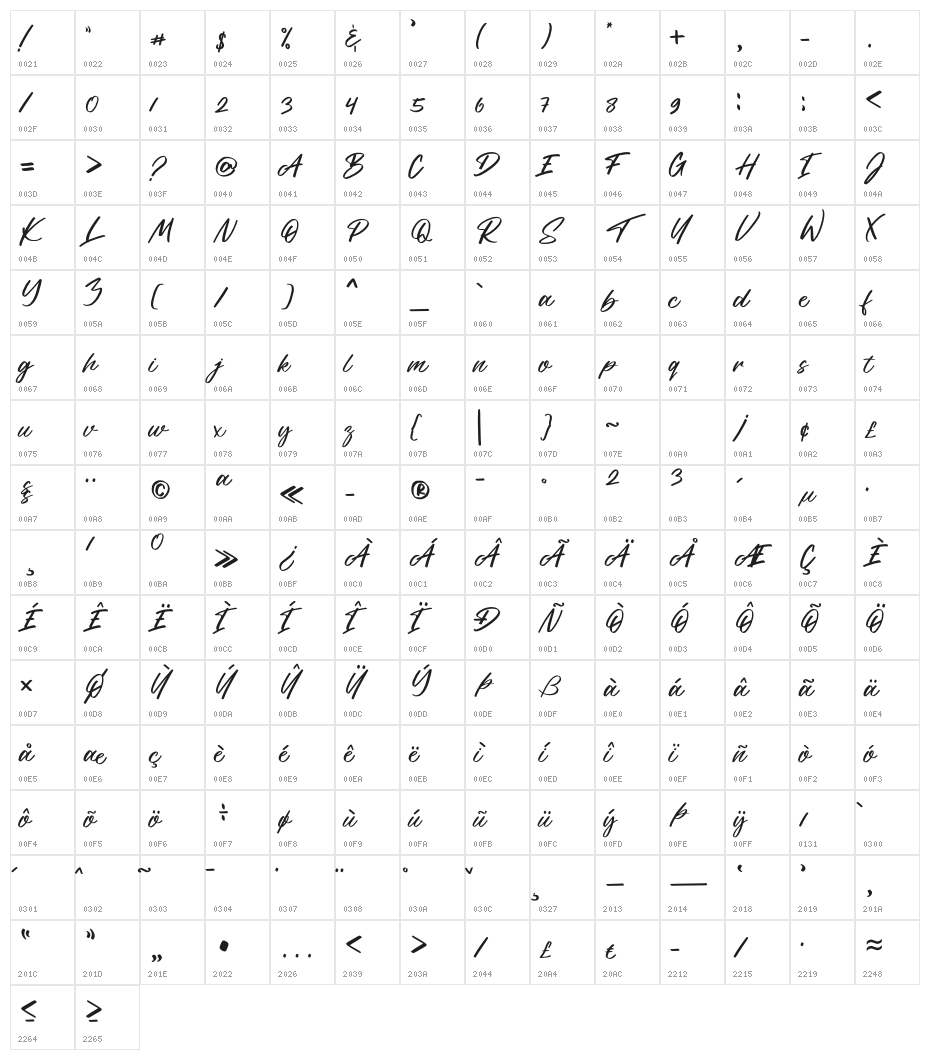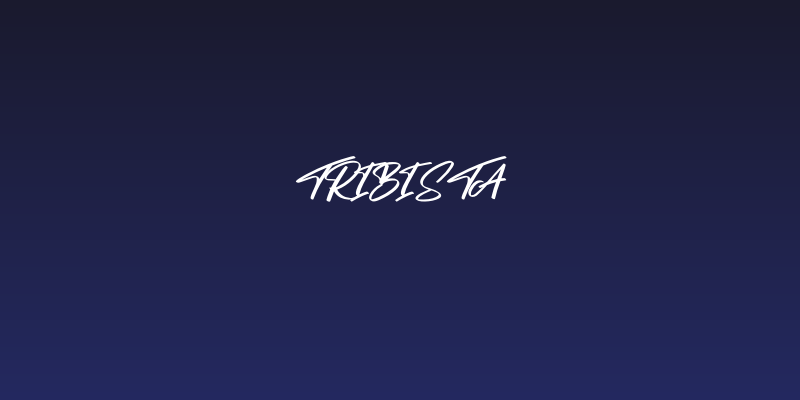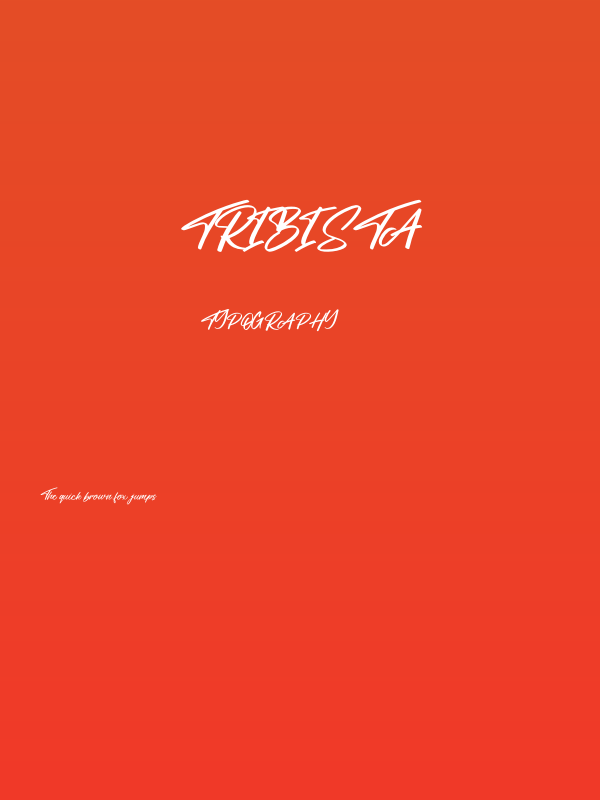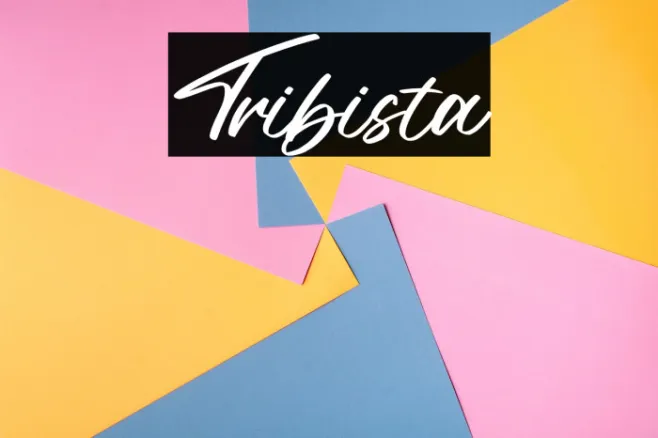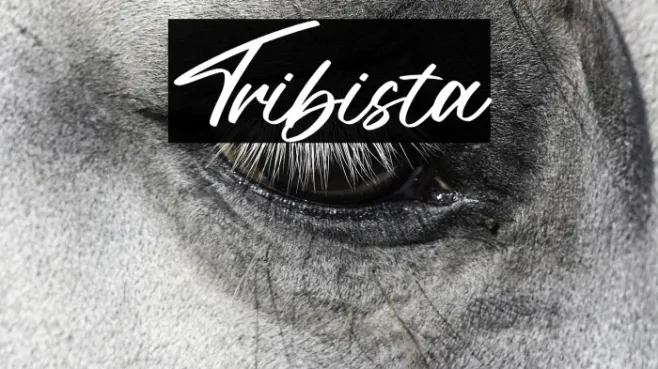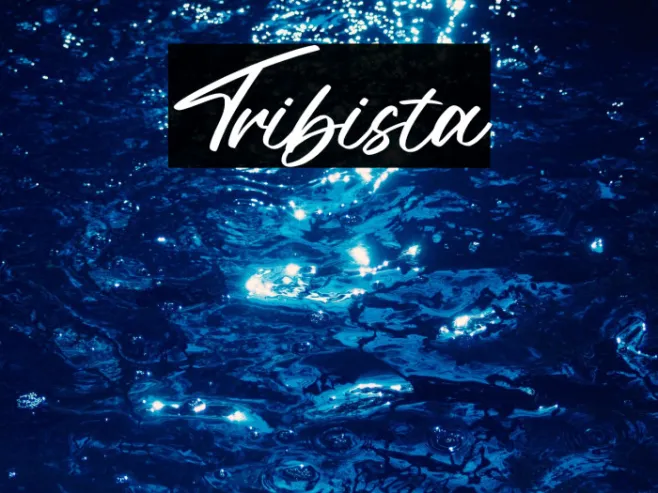
Tribista Font
Tribista Description
This font features a dynamic and flowing script style, characterized by its elegant, cursive letterforms. The strokes are smooth and connected, giving it a handwritten appearance that is both stylish and legible. The uppercase letters are bold and slightly slanted, adding a sense of movement and grace. The lowercase letters maintain a consistent flow, with rounded edges and a natural rhythm. The numerals and special characters complement the overall design, ensuring versatility in various applications. This font exudes a sense of sophistication and creativity, making it ideal for projects that require a personal touch.